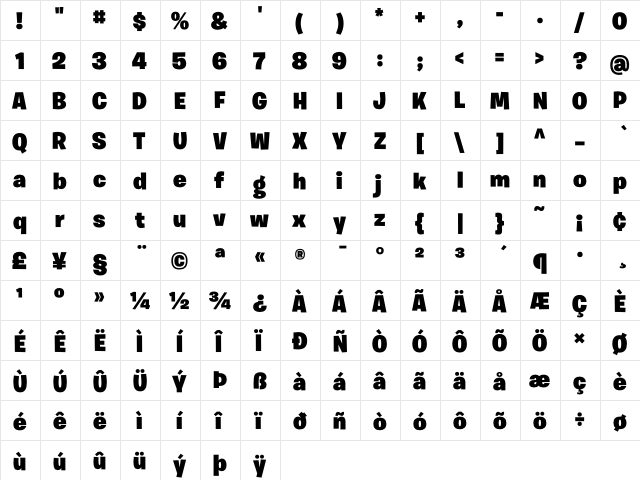
Burbank Big Regular Black
| Foundry | House Industries |
| Designer | Tal Leming |
Design Context for Burbank Big Regular Typeface
Burbank Big Regular offers clean, dependable letterforms without strong stylistic allegiance, making it a practical choice for designers who need flexibility.
Originally released in 2006, this typeface is available in OpenType (OTF) format.